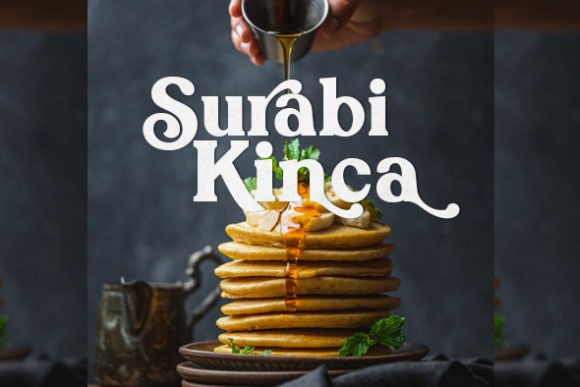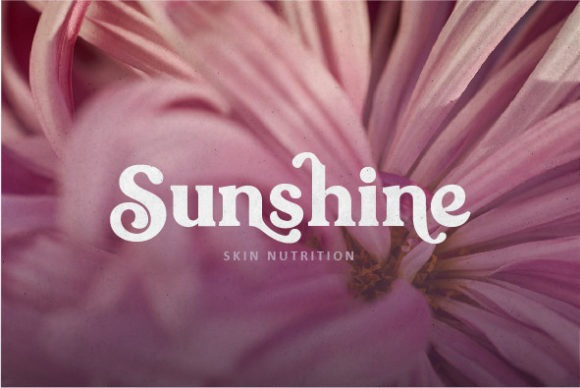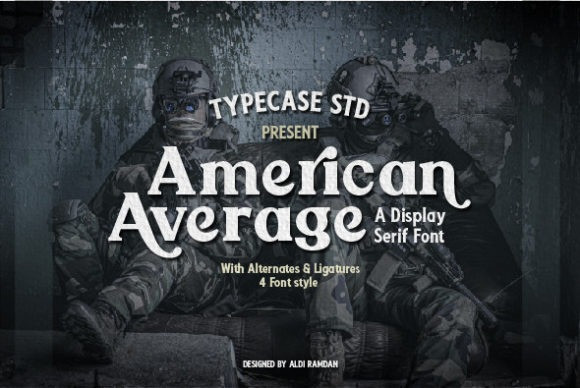
American Average Font
American Average Serif Font is a sleek and modern serif font. It has a modern and retro look. Fall for its ravishing style and use it to create gorgeous designs. This font is PUA encoded which means you can access all glyphs and swashes with ease!